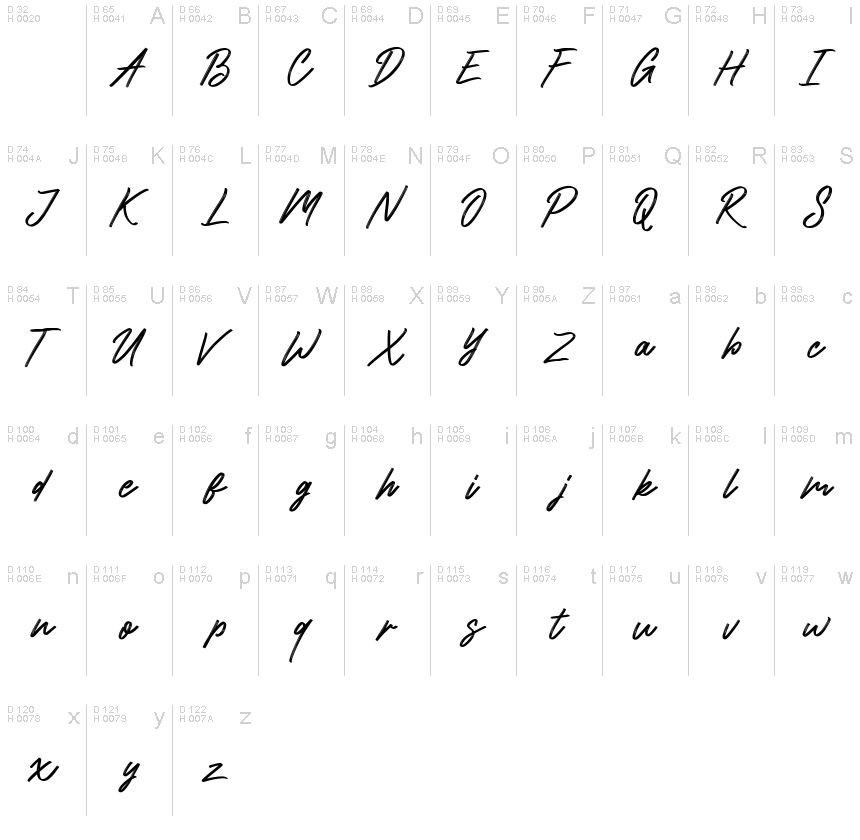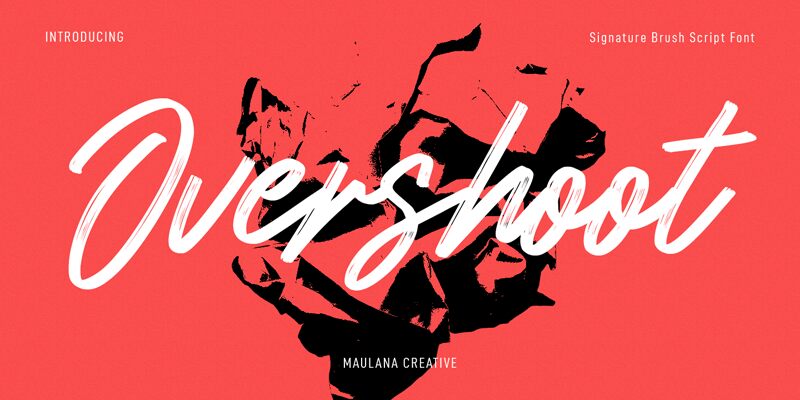
Overshoot Free Font Regular
Overshoot font is designed by Maulana Creative, a brilliant hand lettering designer. It is a unique and elegant handwritten signature font. It's cursive, flowing, slanted letters give the typeface an amazing appearance. Medium contrast strokes with smooth lines make it stylish and modern that is perfect for creating stunning designs. Legible even in small text sizes while capital letters can be used to create great Monogram Letters. This light condensed script comes with free licensing for personal use.
Best for signatures or business card designs, fashion branding or wedding invitation design and websites or social media quote designs to end up everywhere in between. Use it for board games, event posters, restaurant menus, catchy party flyers or limited edition book covers – Overshoot offers the essential tone you need!